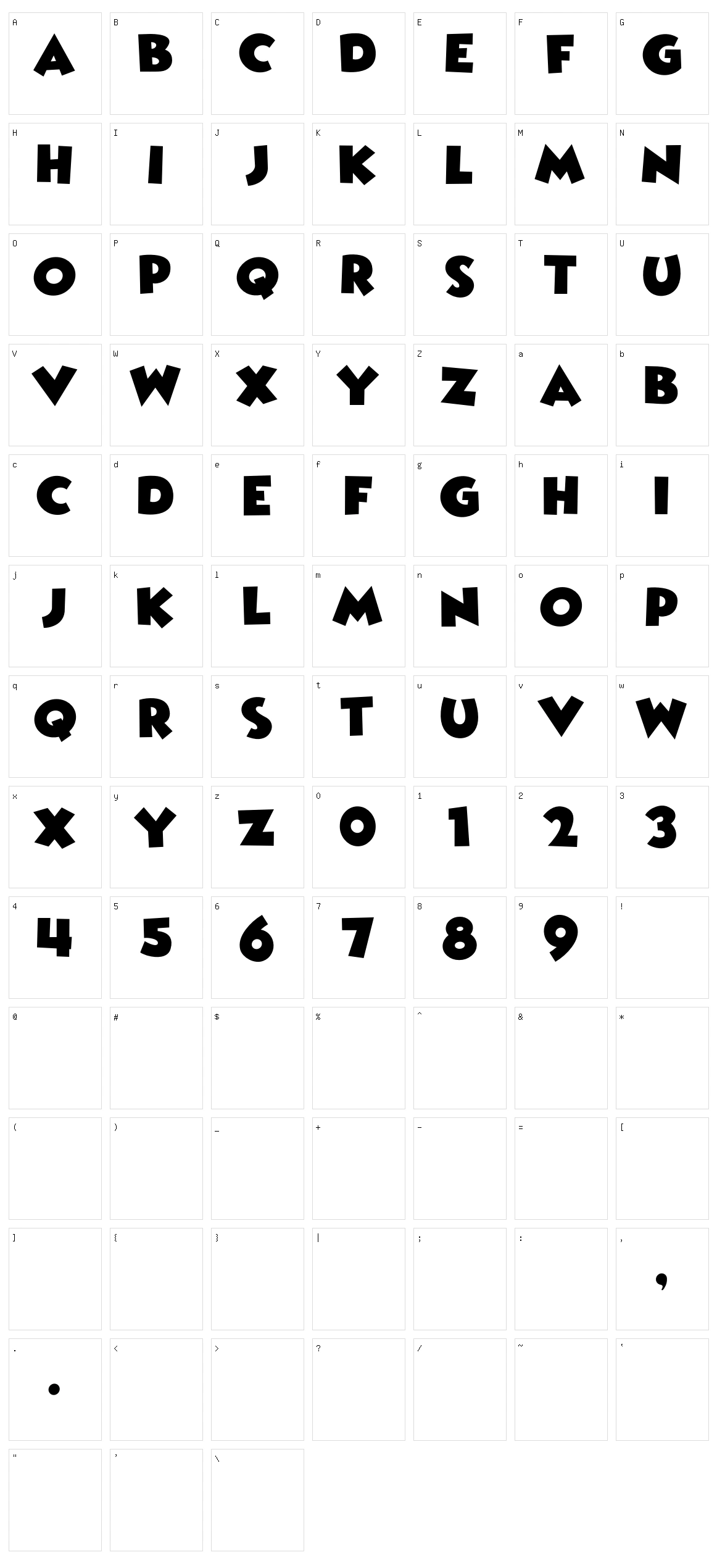
Hold onto your hats folks! Wicked Mouse is a playful display font that captures the magic of cartoons from a distant era. Basic latin, punctuation, extended latin, and diacritics are included in the full versions. Lowercase characters differ slightly in variation and rotation in the regular version while they
mirror their uppercase counterparts in the 3D one. Do check the included glyph maps for all the characters. (slight overlap to be expected with some of the characters) Wacky, childlike, and loose in nature, you'll be able to inject a bit of fun with this typeface into a drab project. Use Wicked Mouse